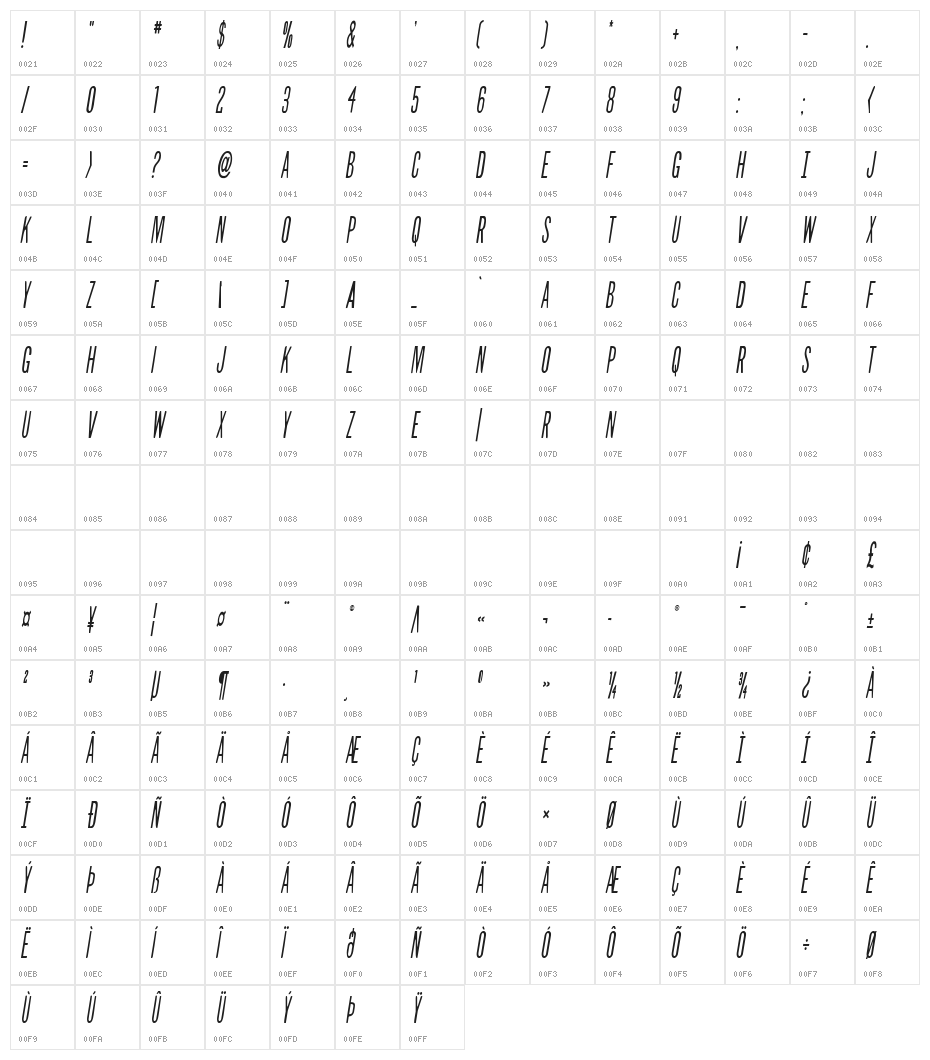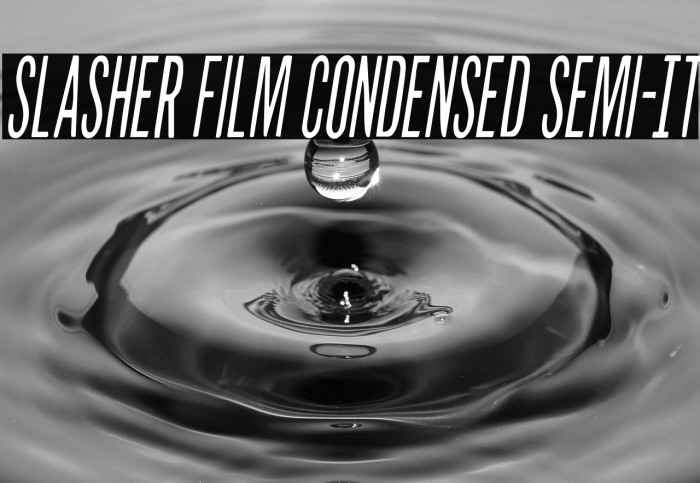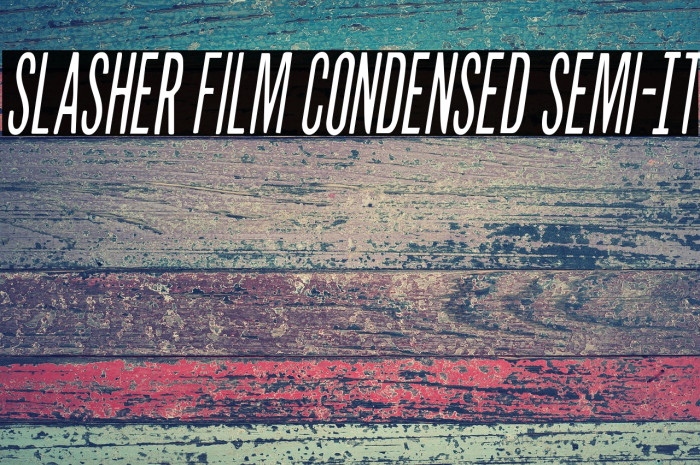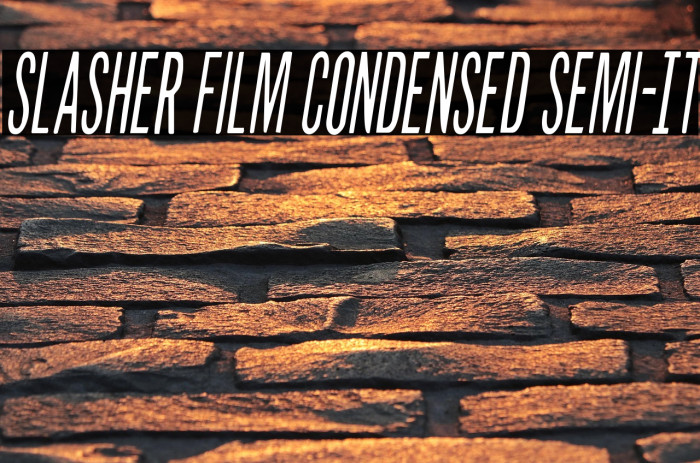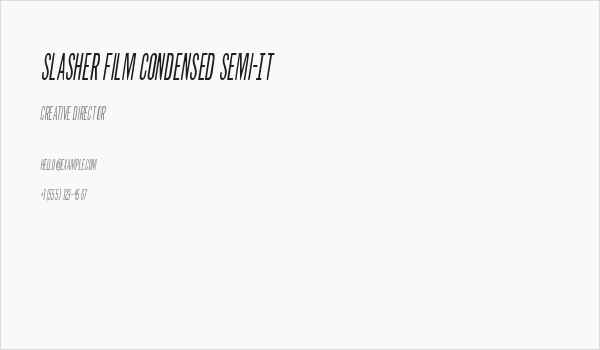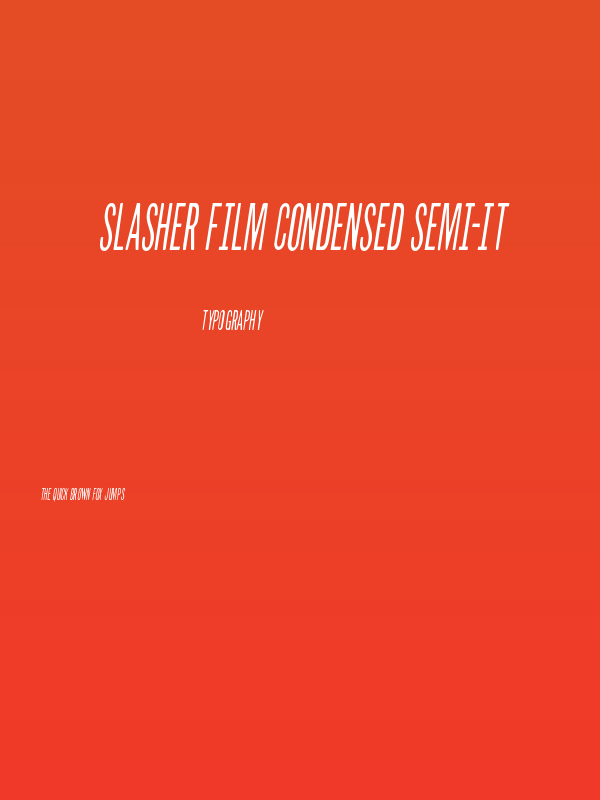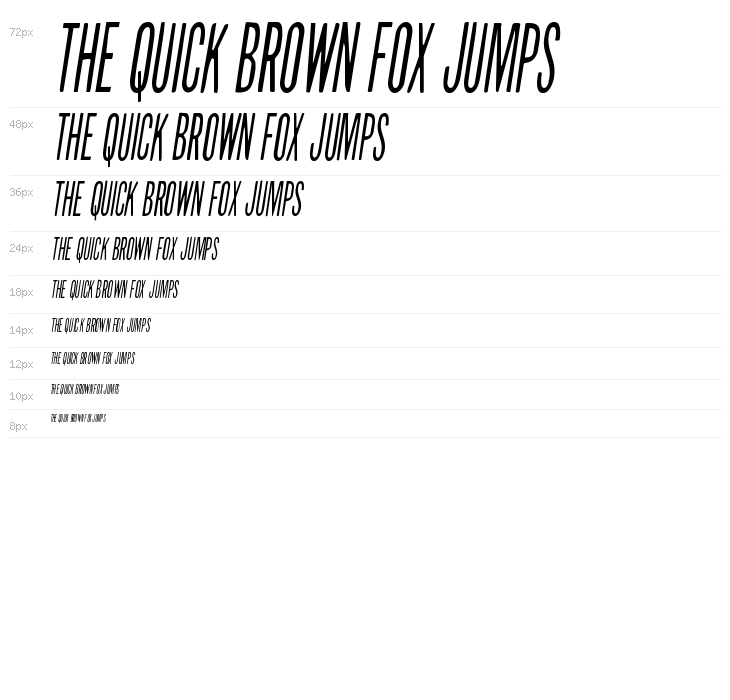
Slasher Film Condensed Semi-It Font
Slasher Film Condensed Semi-It Description
This font features a striking, condensed style with a semi-italic slant, giving it a dynamic and edgy appearance. The characters are tall and narrow, creating a sense of urgency and movement. The uppercase and lowercase letters maintain a consistent height, contributing to a uniform look. The numerals and special characters are designed to match the overall aesthetic, with sharp angles and clean lines. This font's unique style makes it ideal for projects that require a bold and impactful visual statement.
| Overall Style | Modern, Edgy |
| Use Case | Headlines, Posters, Branding |
| Proposed Projects | Ideal for movie posters, horror-themed designs, edgy branding, and attention-grabbing headlines. |